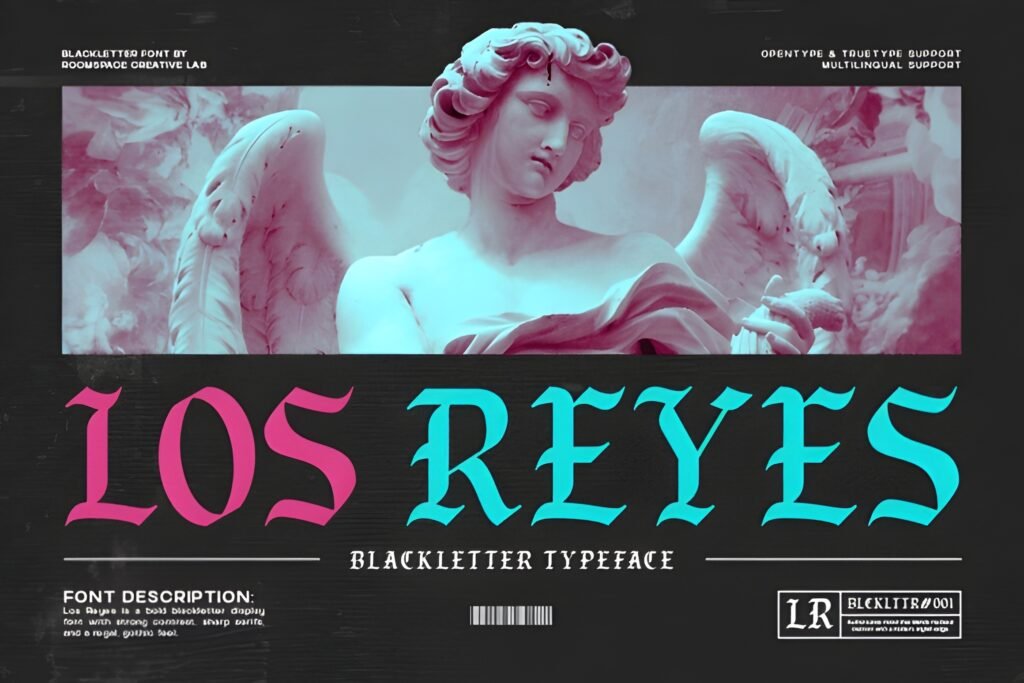
✒️ Los Reyes Font — Regal Gothic Blackletter Typeface for Tattoos & Bold Design
Los Reyes Font is a commanding presence among modern Fonts for Tattoos, a bold blackletter display typeface that fuses medieval strength with contemporary craftsmanship. Designed with sharp serifs, dramatic contrast, and a regal classic mood, this font embodies the spirit of kingship and heritage, while remaining versatile enough for today’s creative projects.
Every letter in Los Reyes carries a sense of authority and artistry. Its angular strokes and gothic elegance make text feel powerful, mysterious, and timeless. Whether you’re designing tattoos, posters, album covers, streetwear branding, barbershop logos, or dramatic packaging, Los Reyes ensures your words stand out with impact and sophistication.
Key Advantages
- Top Fonts for Tattoos — ideal for names, quotes, and symbolic phrases with gothic flair.
- Bold blackletter design — sharp serifs and strong contrast for a striking medieval aesthetic.
- Versatile applications — perfect for tattoos, branding, apparel, posters, music covers, and lifestyle graphics.
- Regal & classic mood — adds a sense of heritage, tradition, and timeless artistry.
- Readable yet decorative — balances clarity with ornamental details for professional use.
- Modern craftsmanship — designed for both digital and print projects with flawless execution.
With Los Reyes Font, your words become more than text — they transform into visual emblems of strength, culture, and elegance. A must‑have typeface for tattoo artists, designers, and creatives who want to merge gothic tradition with modern boldness, ensuring every design leaves a lasting impression.